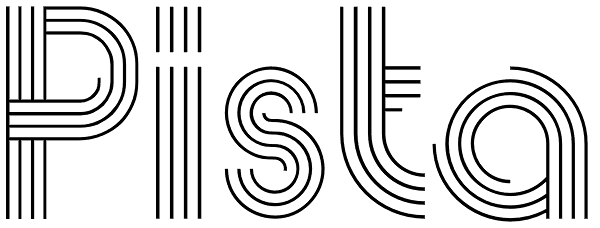
Pista
Pista is a unique decorative typeface which is applicable for web, print especially for magazines, brochures, posters, flyers and motion graphics. Pista has six weights - regular, bold, outline, rounded, rounded bold and rounded outline. The weights...
Pista
Pista Rounded Outline
Pista Outline
Pista Bold
Pista Rounded
Pista Rounded Bold